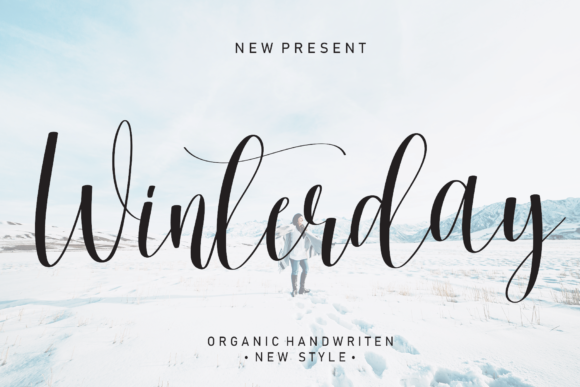
Step into the enchanting world of Winterday Font, a captivating script font that dances across your designs. Inspired by the serene beauty of a winter wonderland, Winterday Font evokes a feeling of warmth and nostalgia. Each letter flows with an effortless grace, like snowflakes swirling in a gentle breeze. The unique flourishes and delicate details add a touch of whimsy and charm, making your words come alive.
Crafted with meticulous care, Winterday Font is a versatile masterpiece that adapts seamlessly to a myriad of creative projects. Whether you're designing a logo that exudes elegance, crafting invitations that radiate charm, or creating social media posts that demand attention, Winterday Font will elevate your designs to new heights.
Immerse yourself in the magic of Winterday Font and let your imagination soar. Picture your name, written in this graceful script, adorning your office door or your child's bedroom wall. Envision your brand logo, emblazoned in Winterday Font, standing out from the crowd with a timeless appeal. Let your words dance across the screen in Winterday Font, captivating your audience with its charm and sophistication.
Join the ranks of design enthusiasts who have fallen under the spell of Winterday Font. Allow its beauty to transform your creative vision into a reality. Embrace the elegance, indulge in the whimsy, and let Winterday Font carry your message to the world.